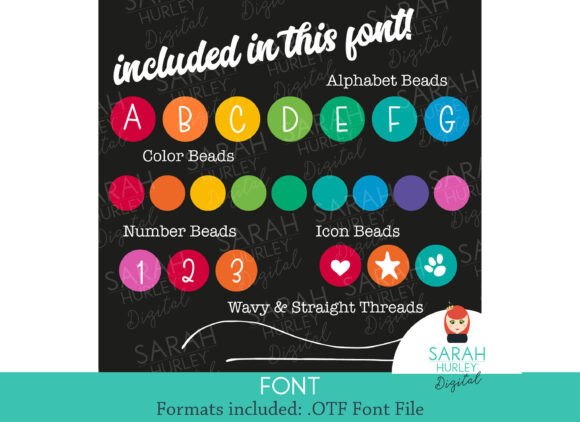
Introducing Friendship Bracelet Bright Font: A Colorful and Vibrant Typeface Inspired by Bead Bracelet Designs
Are you looking for a fun and playful font to add a creative flair to your designs? Look no further than Friendship Bracelet Bright Font! This unique and lively typeface is inspired by the classic bead bracelet designs that bring back nostalgic memories of childhood summers and sleepovers. Each letter is enclosed in a bright, cheerful bead, making it perfect for kids’ crafts, party invitations, DIY projects, and playful branding.
The Inspiration Behind Friendship Bracelet Bright Font
Friendship Bracelet Bright Font is a digital typeface that takes its cue from the colorful and vibrant world of bead bracelets. The font’s creator was inspired by the classic designs of these iconic accessories, which have been a staple of kids’ fashion for decades. The result is a font that is both playful and nostalgic, evoking memories of carefree summer days and creative play.
Key Features of Friendship Bracelet Bright Font
- Unique Bead-Enclosed Letters: Each letter in Friendship Bracelet Bright Font is enclosed in a bright, cheerful bead, giving the font its distinctive look and feel.
- Colorful and Vibrant: The font features a wide range of bright, bold colors that are sure to add a pop of fun to any design.
- Playful and Nostalgic: Friendship Bracelet Bright Font is the perfect choice for designers who want to add a touch of whimsy and nostalgia to their work.
- Perfect for Kids’ Crafts and DIY Projects: The font’s playful and colorful design makes it ideal for kids’ crafts, party invitations, and DIY projects.
Uses for Friendship Bracelet Bright Font
Friendship Bracelet Bright Font is a versatile typeface that can be used in a wide range of design applications. Here are some ideas to get you started:
- Kids’ Crafts: Use Friendship Bracelet Bright Font to create fun and colorful craft projects, such as DIY jewelry, party decorations, and activity sheets.
- Party Invitations: Add a playful touch to your party invitations with Friendship Bracelet Bright Font, perfect for kids’ birthday parties, baby showers, and other celebrations.
- DIY Projects: Use the font to create unique and personalized DIY projects, such as customized jewelry, home decor, and accessories.
- Playful Branding: Friendship Bracelet Bright Font is also perfect for playful branding and marketing materials, such as logos, packaging, and advertisements.
Tips for Using Friendship Bracelet Bright Font
Here are some tips for getting the most out of Friendship Bracelet Bright Font:
- Experiment with Colors: Don’t be afraid to try out different color combinations to find the perfect look for your design.
- Mix and Match Fonts: Friendship Bracelet Bright Font pairs well with other playful fonts, so feel free to experiment with different font combinations.
- Add Texture and Patterns: Add an extra layer of interest to your design by incorporating texture and patterns, such as glitter, polka dots, or stripes.
| Font Name | Friendship Bracelet Bright Font |
| Author | Sarah Hurley |
Friendship Bracelet Bright Font is a unique and lively typeface that is sure to add a creative flair to your designs. With its colorful and vibrant bead-enclosed letters, playful and nostalgic vibe, and versatility in design applications, this font is perfect for designers and crafters looking to add a touch of whimsy to their work. So why not give Friendship Bracelet Bright Font a try and see how it can bring a smile to your design!